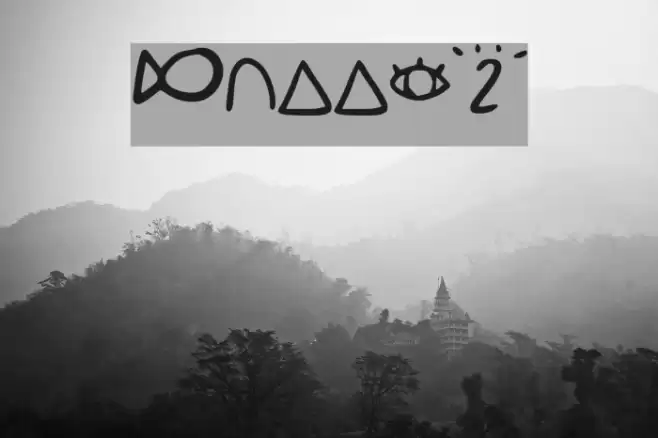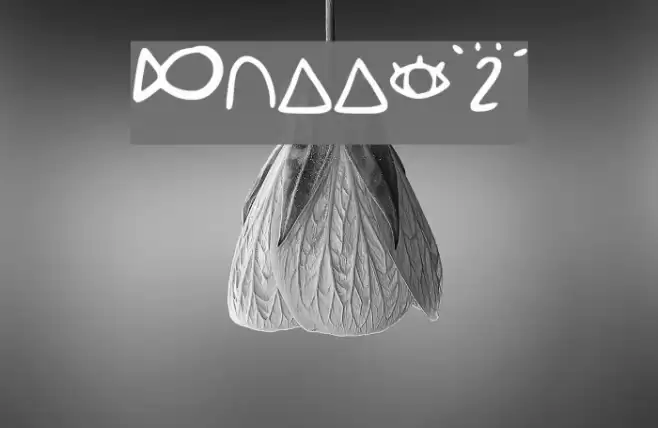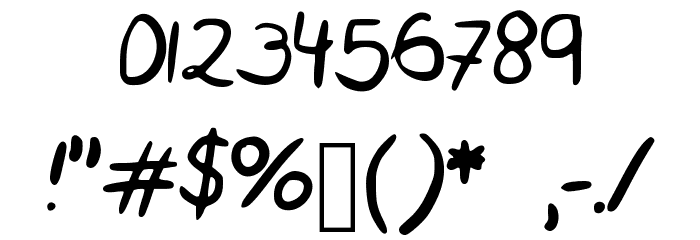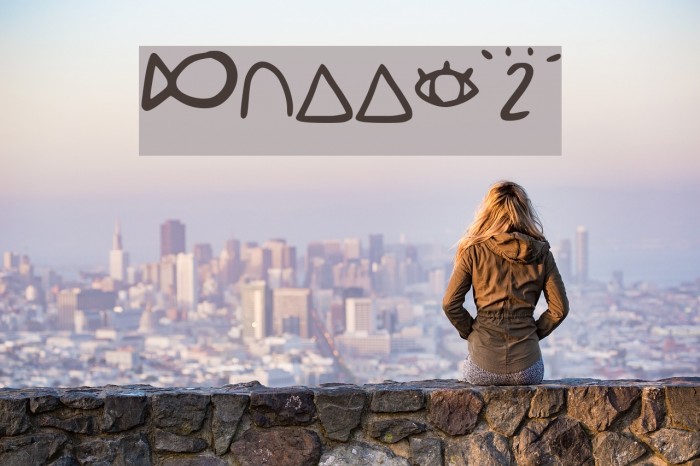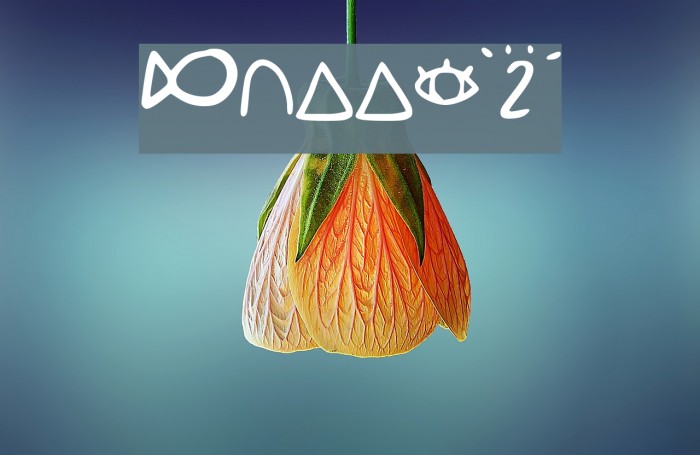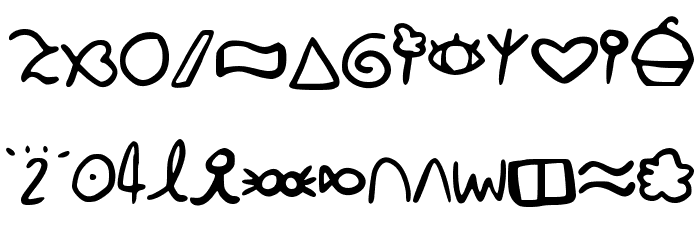
Tuffin Font
Tuffin Description
This font is a playful and whimsical design, featuring characters that resemble doodles or hand-drawn symbols. Each letter and number is crafted with a unique, artistic flair, incorporating elements like spirals, hearts, and abstract shapes. The style is reminiscent of a child's drawing, with uneven lines and a casual, informal appearance. The characters are bold and stand out, making them suitable for creative and fun projects. The font includes a full set of uppercase and lowercase letters, numbers, and a variety of special characters, each maintaining the quirky and imaginative theme.
A playful, doodle-like font with whimsical and artistic characters from Uncategorized fonts.
- Proposed Projects: Ideal for children's books, playful branding, creative posters, and any project needing a fun, informal touch.
- Overall Style: Whimsical, Playful, Artistic